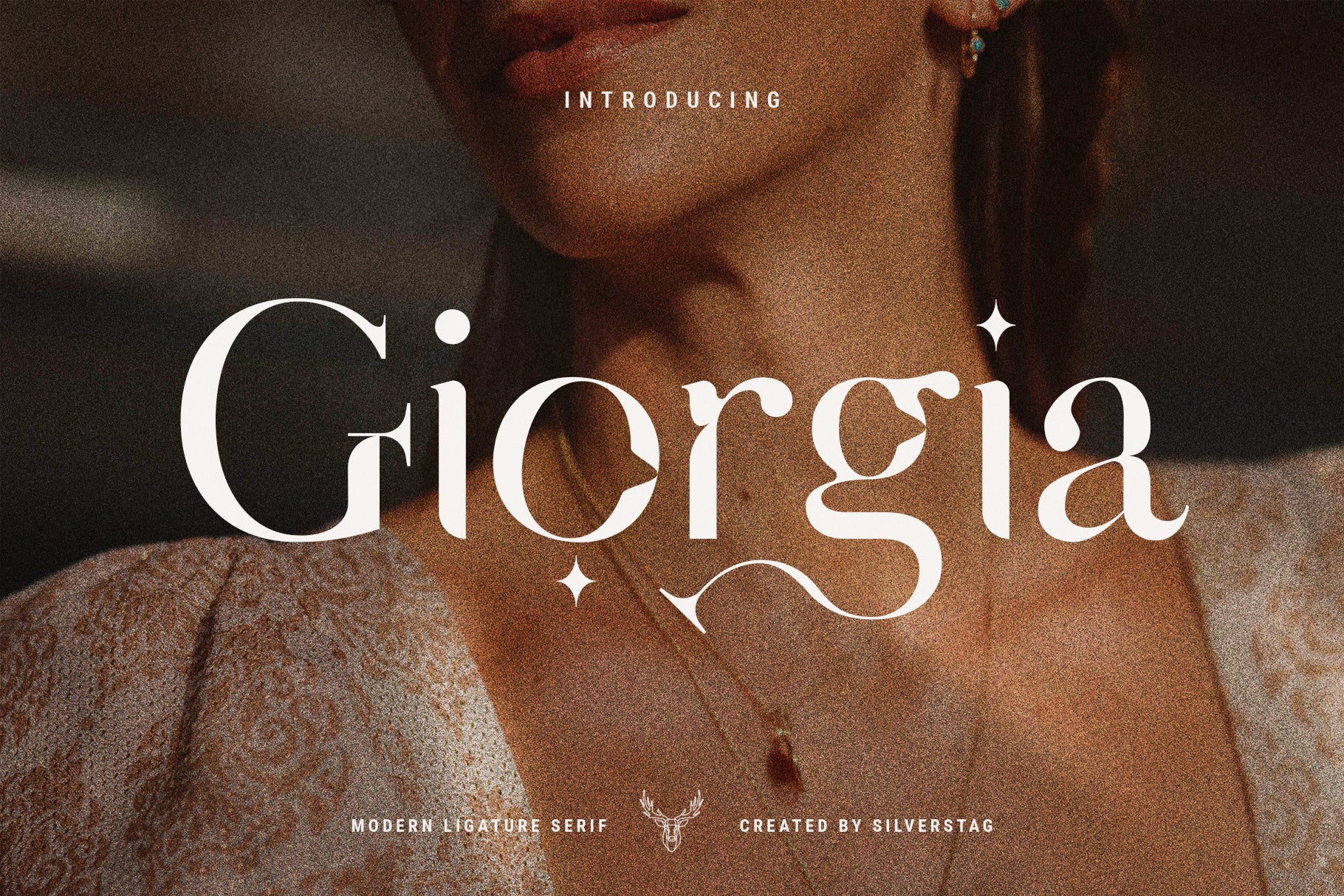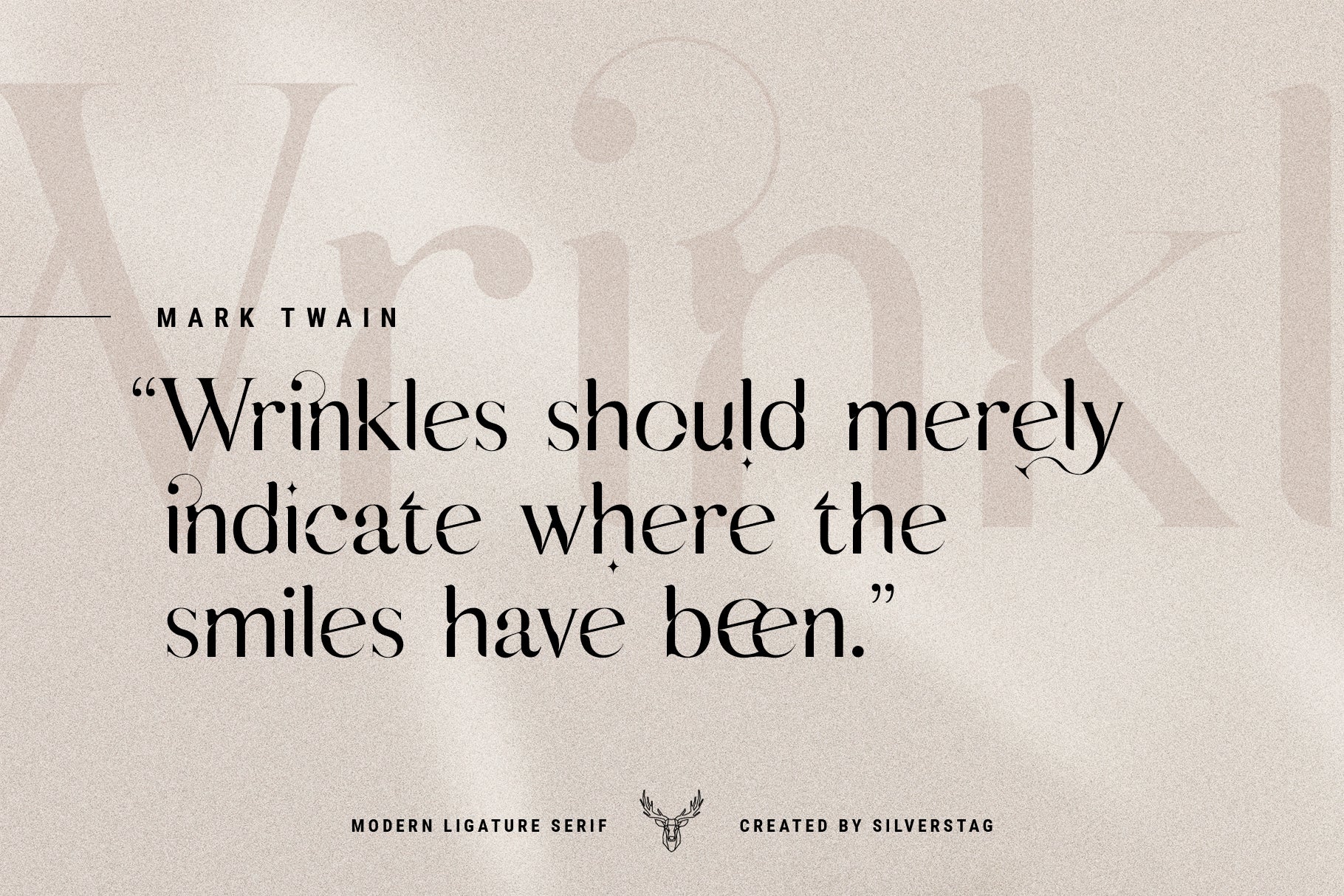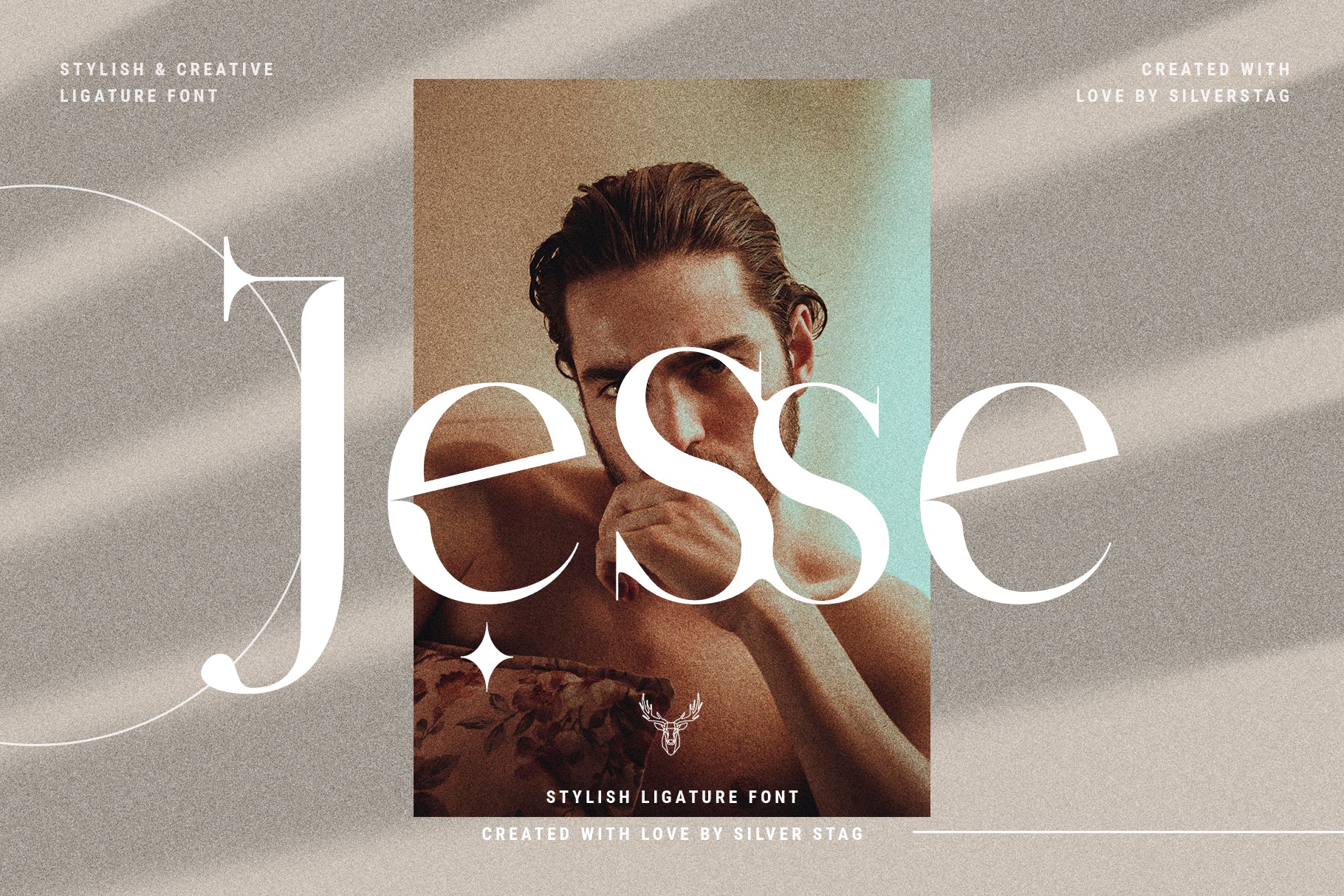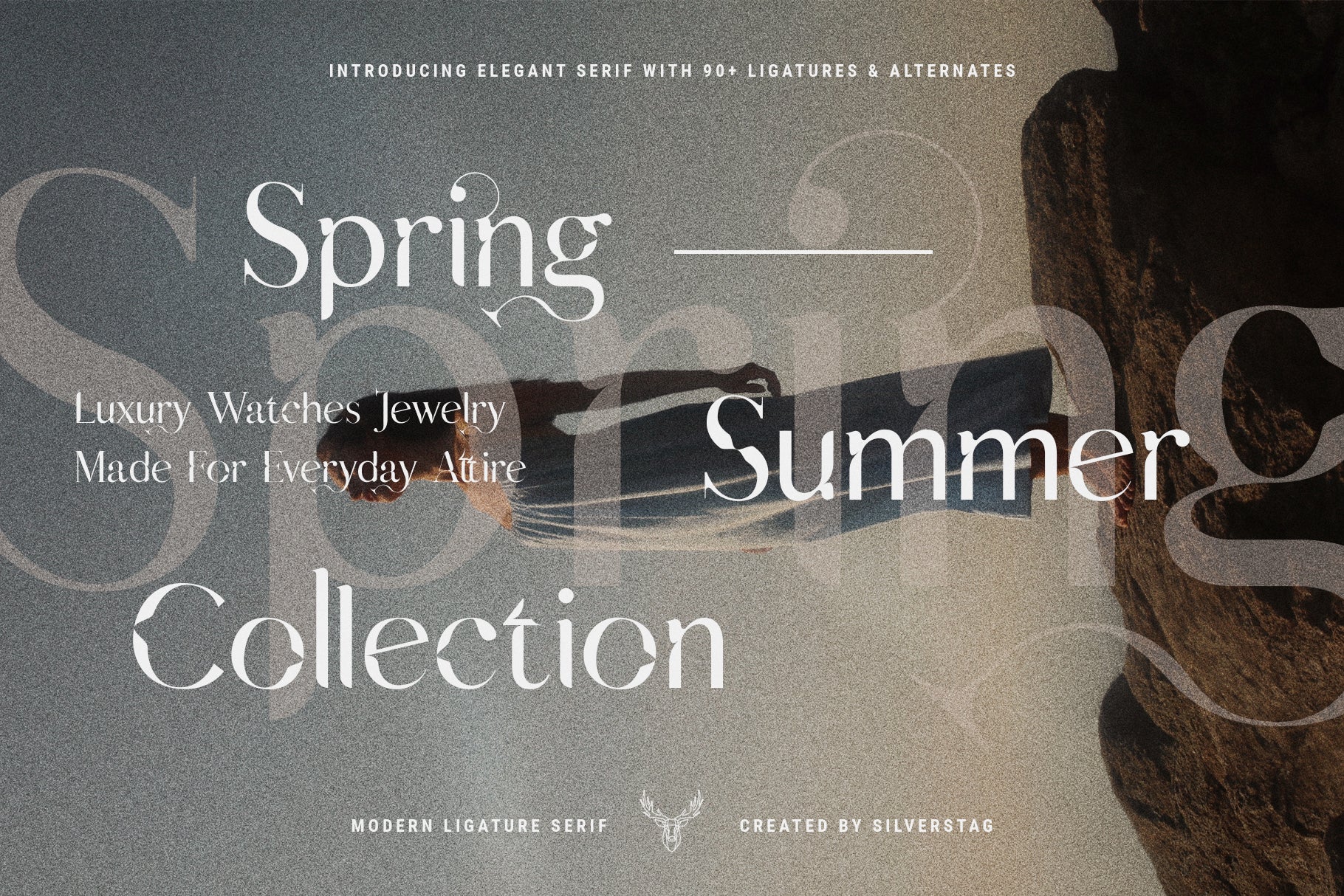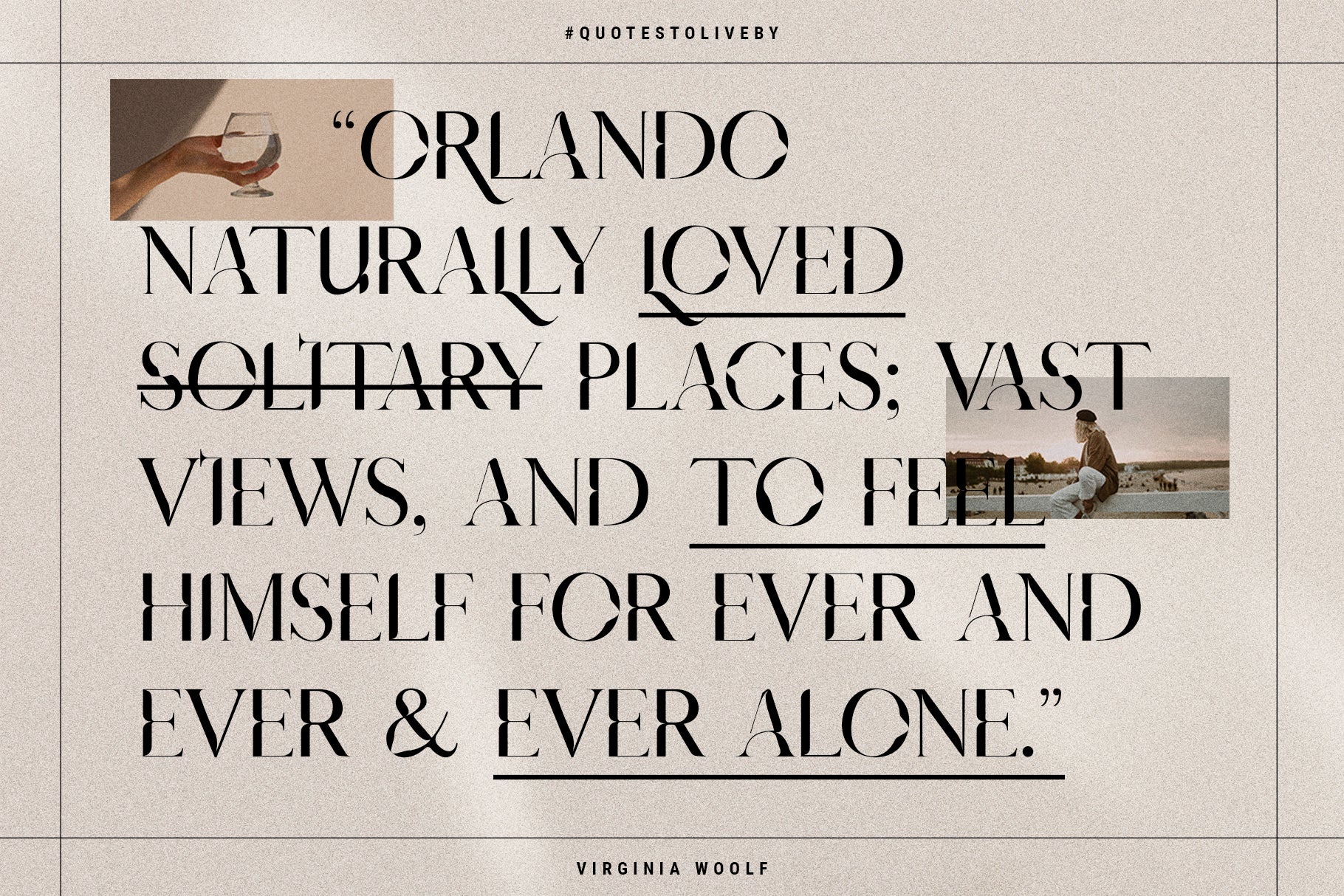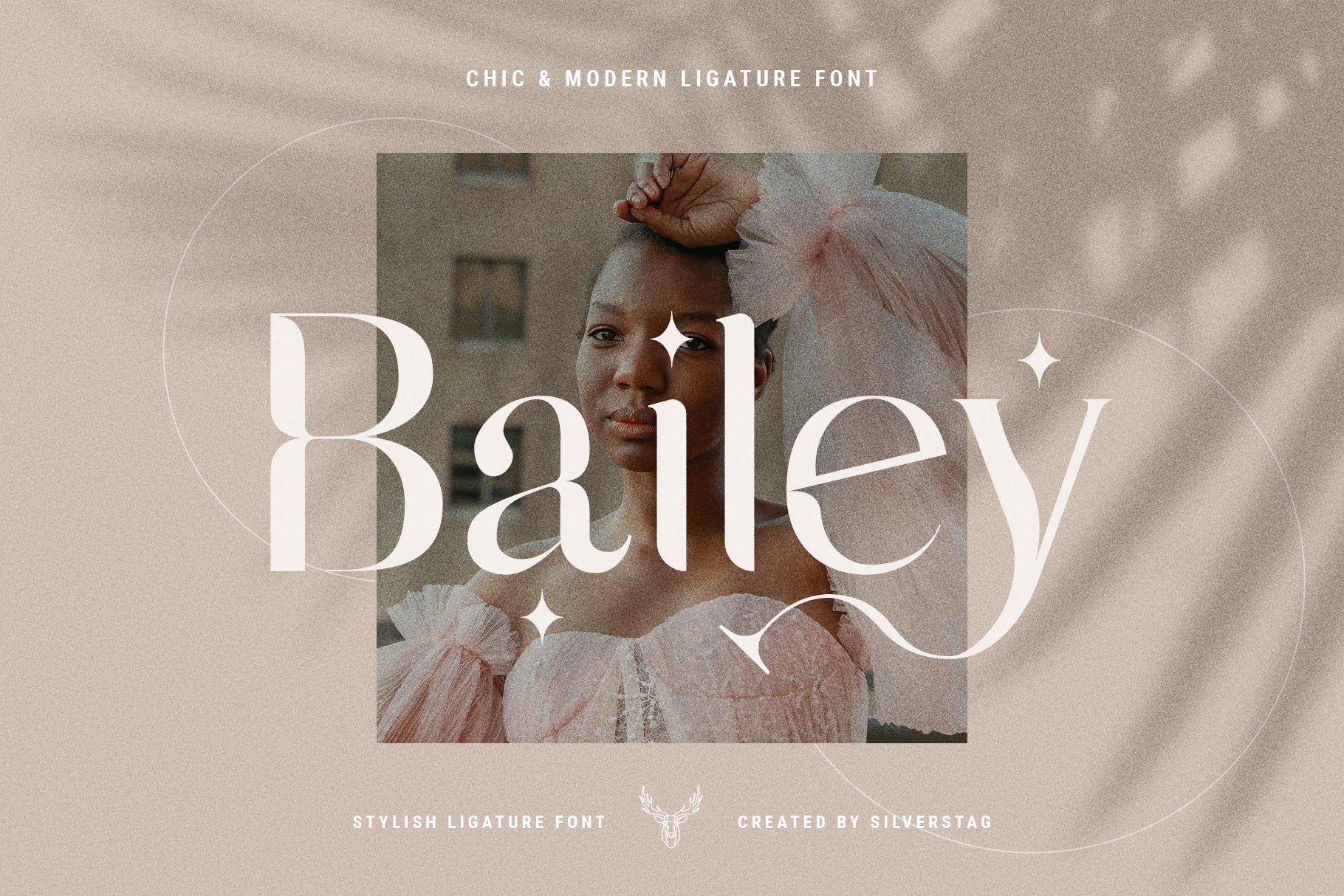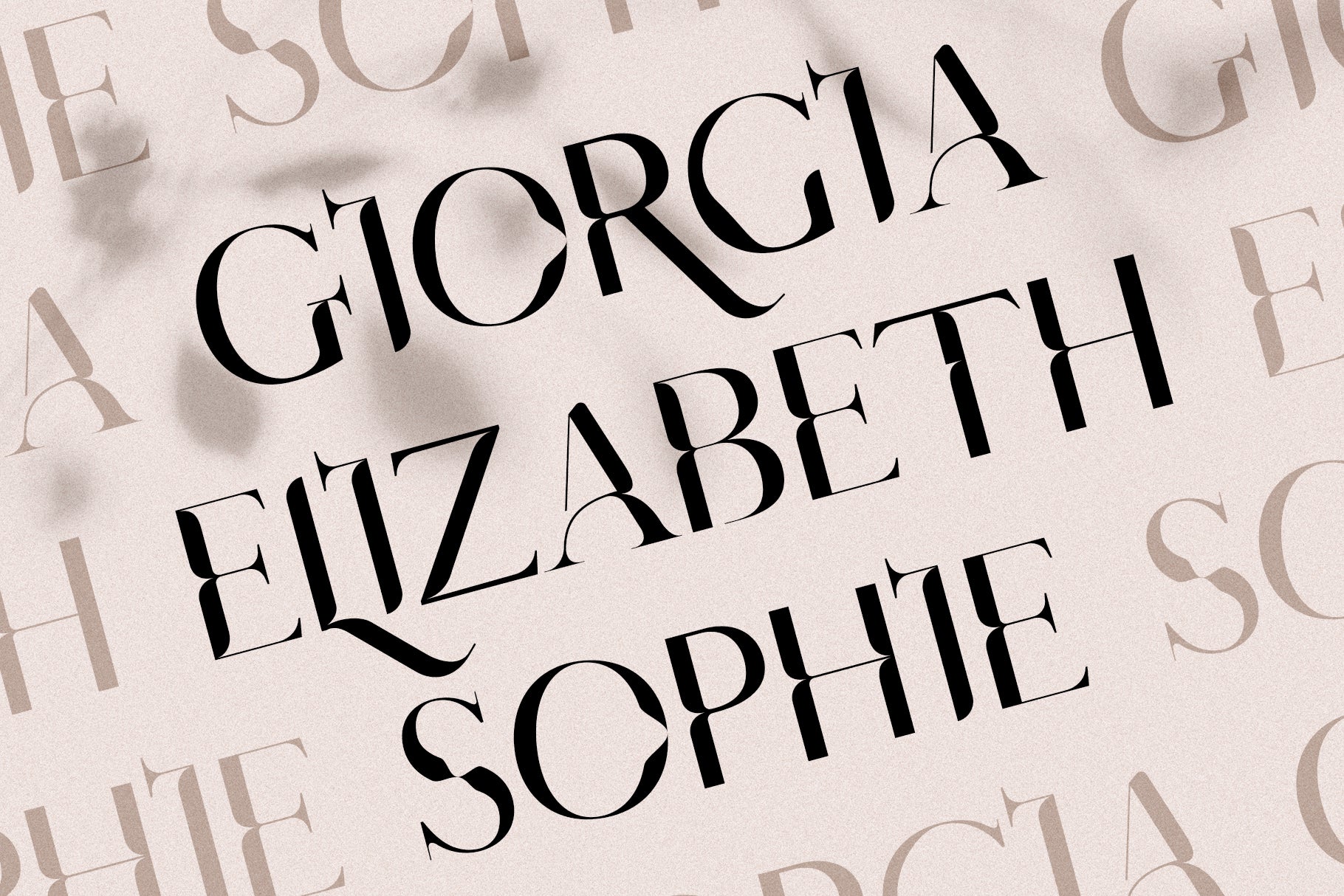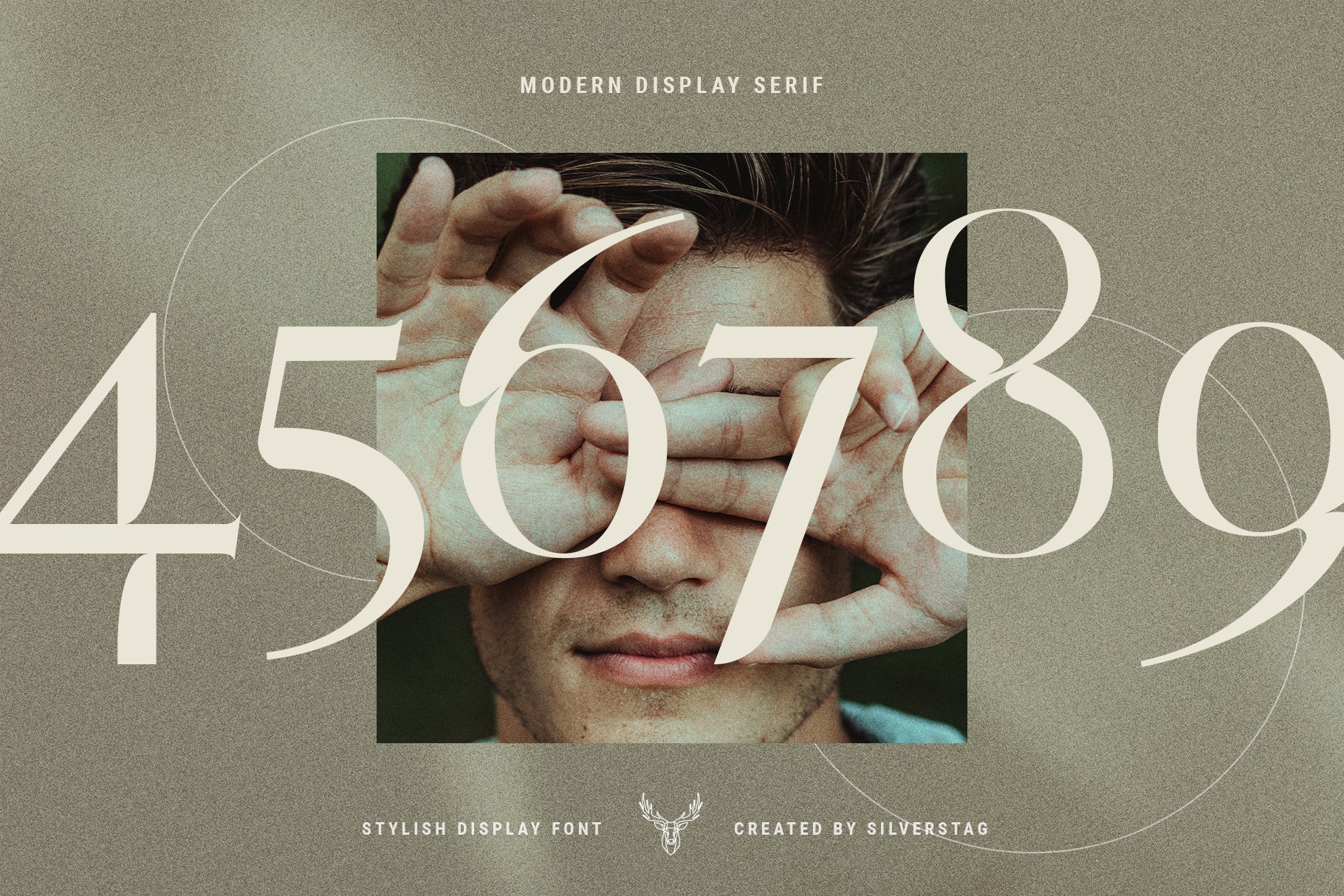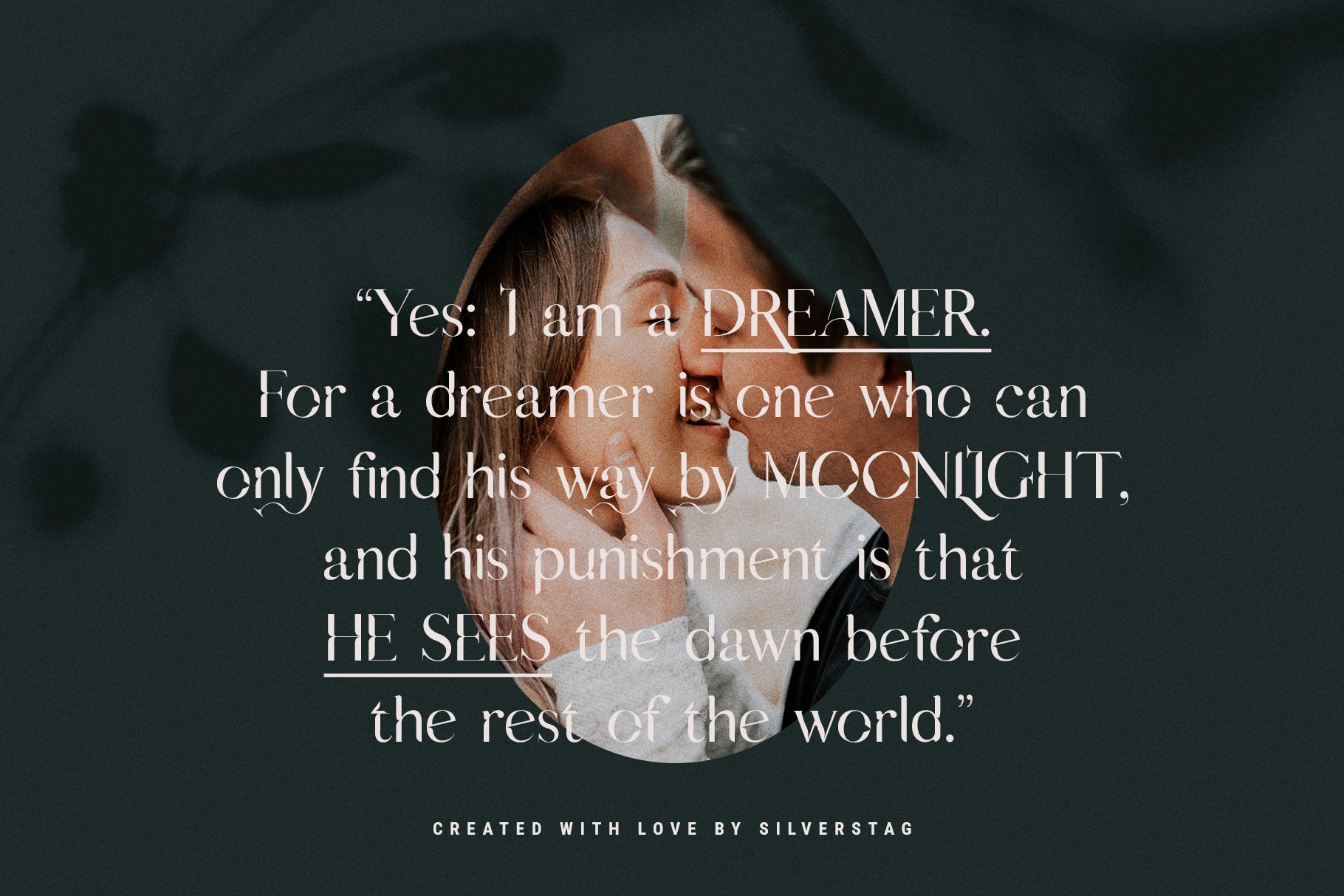
Say ciao to Giorgia, a refined ligature serif typeface that radiates timeless elegance with a touch of Italian flair. Inspired by the beauty and charm of Italy, this sophisticated font features over 90 handcrafted ligatures and alternates, each designed to flow effortlessly with the next, ensuring seamless combinations and polished typography.
Giorgia’s soft rounded edges, graceful curves, and elevated contrasts make it the ideal choice for luxury branding, wedding invitations, high-end packaging, elegant social media graphics, and fashion-forward editorials. Whether you’re crafting a chic logo or laying out a romantic mood board, Giorgia is your go-to for classic elegance with a modern twist.